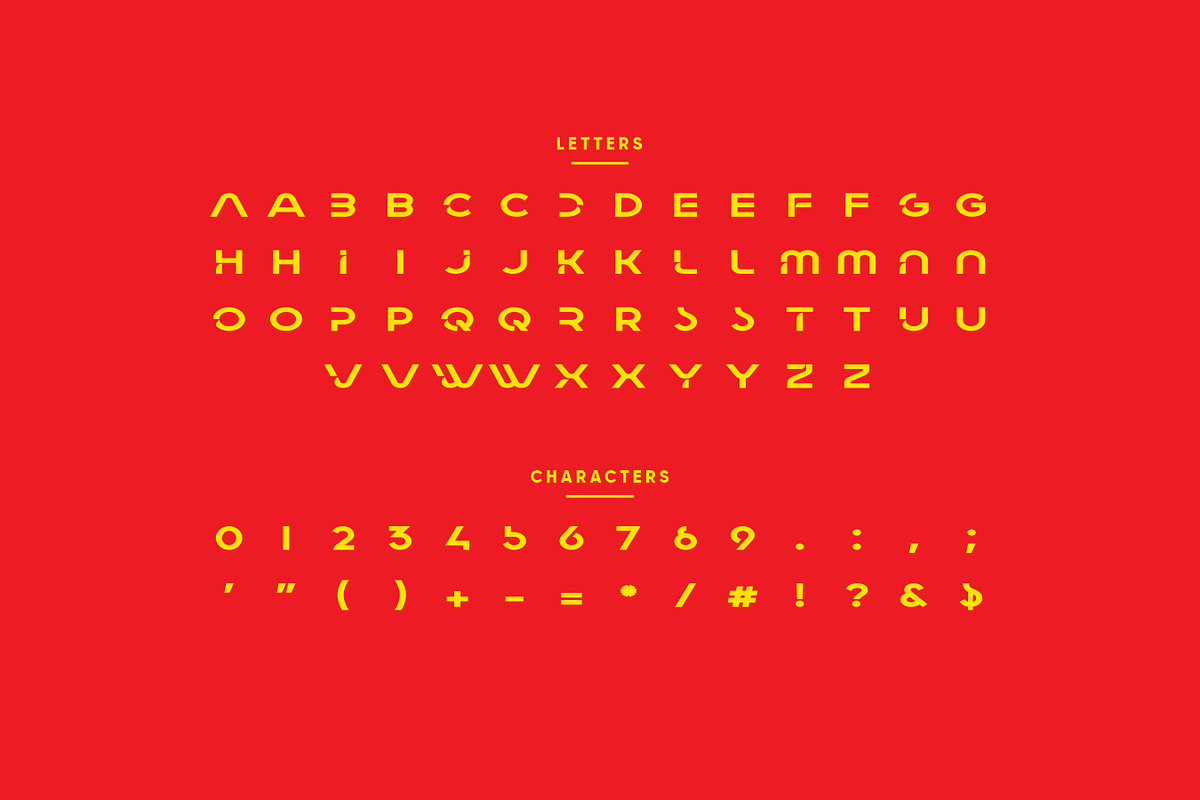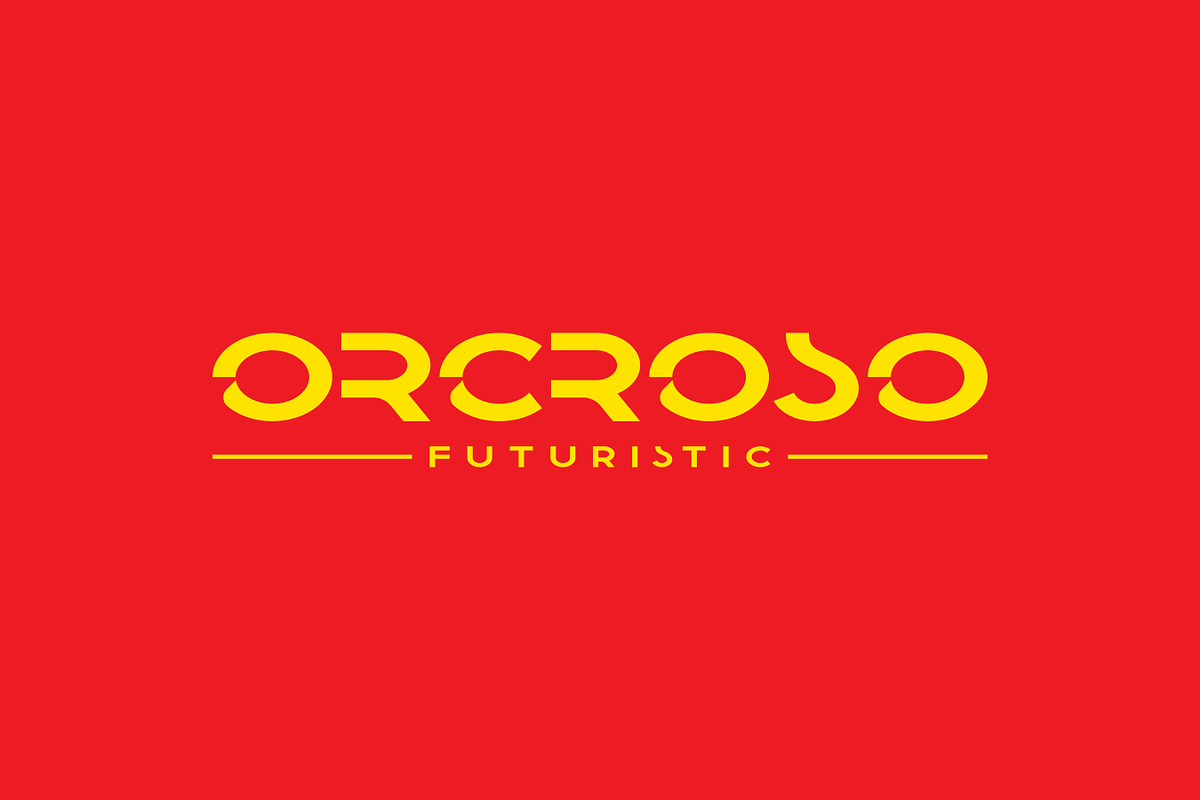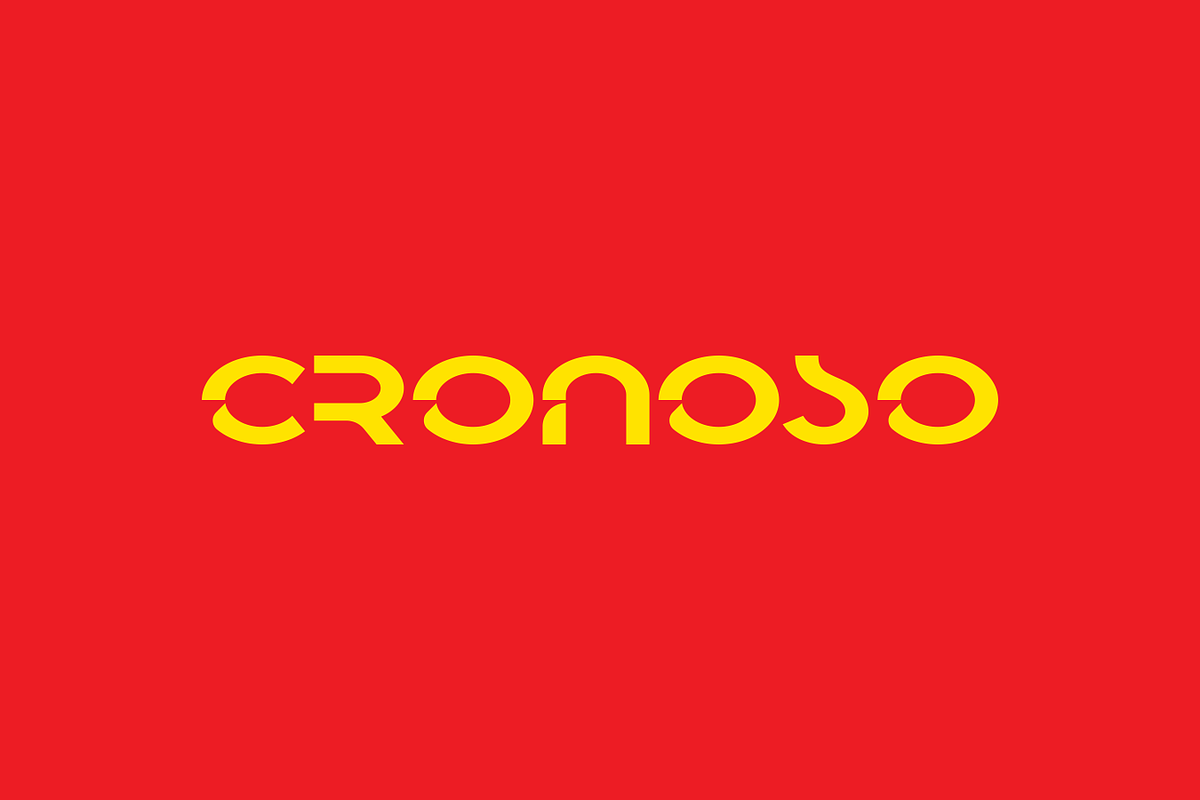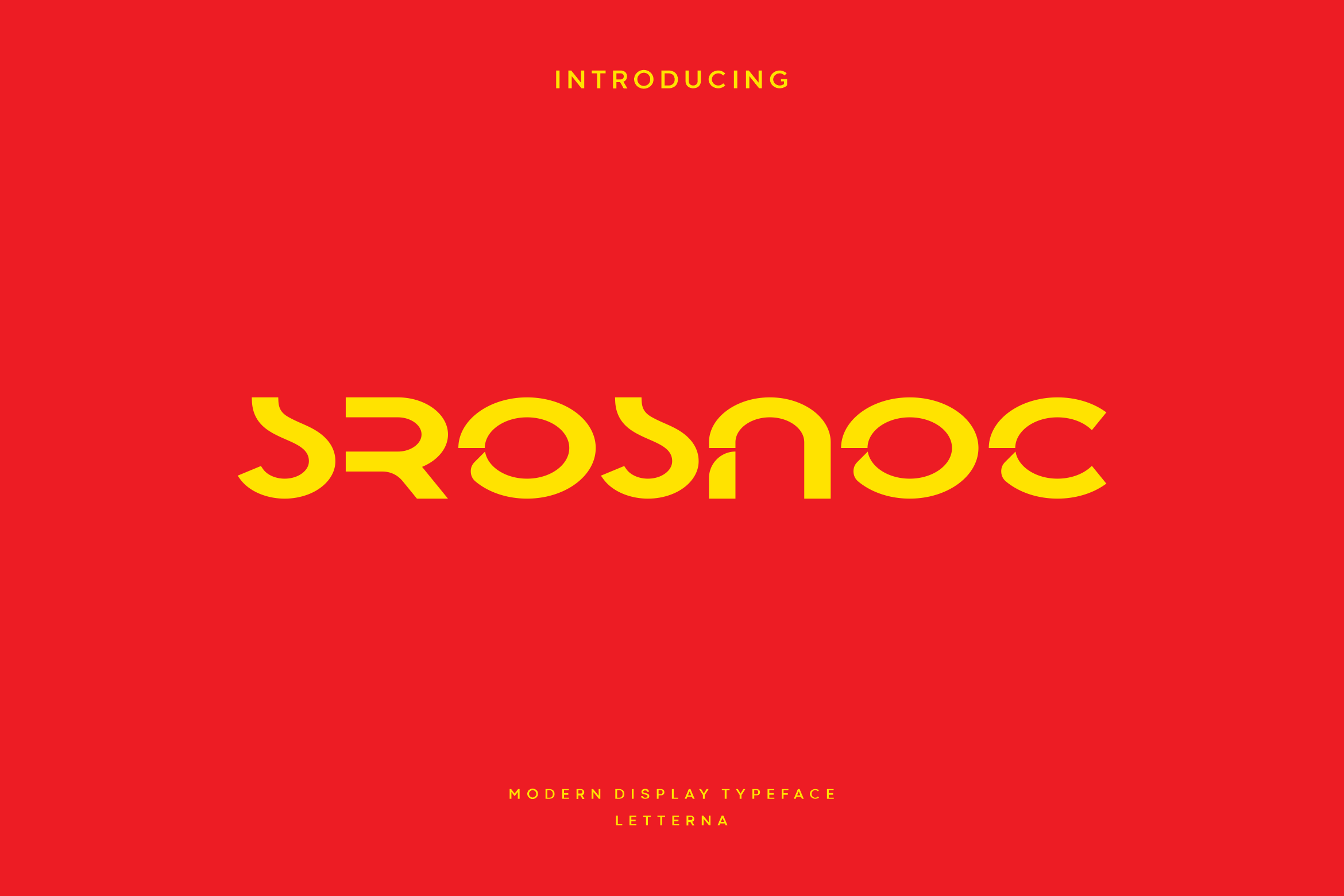
Srosnoc - Modern Display Typeface
Srosnoc font is a modern and authentic display font. This font is good for Logo Design, Poster, Movie Titles, Books Titles, and good for your secondary text font. Srosnoc will brings you to the next level of a stunning typeface that can showcase elegance but with a minimalist form. The curves at each end of the letter ornament illustrate that this font is very ready to live in the present and the future.